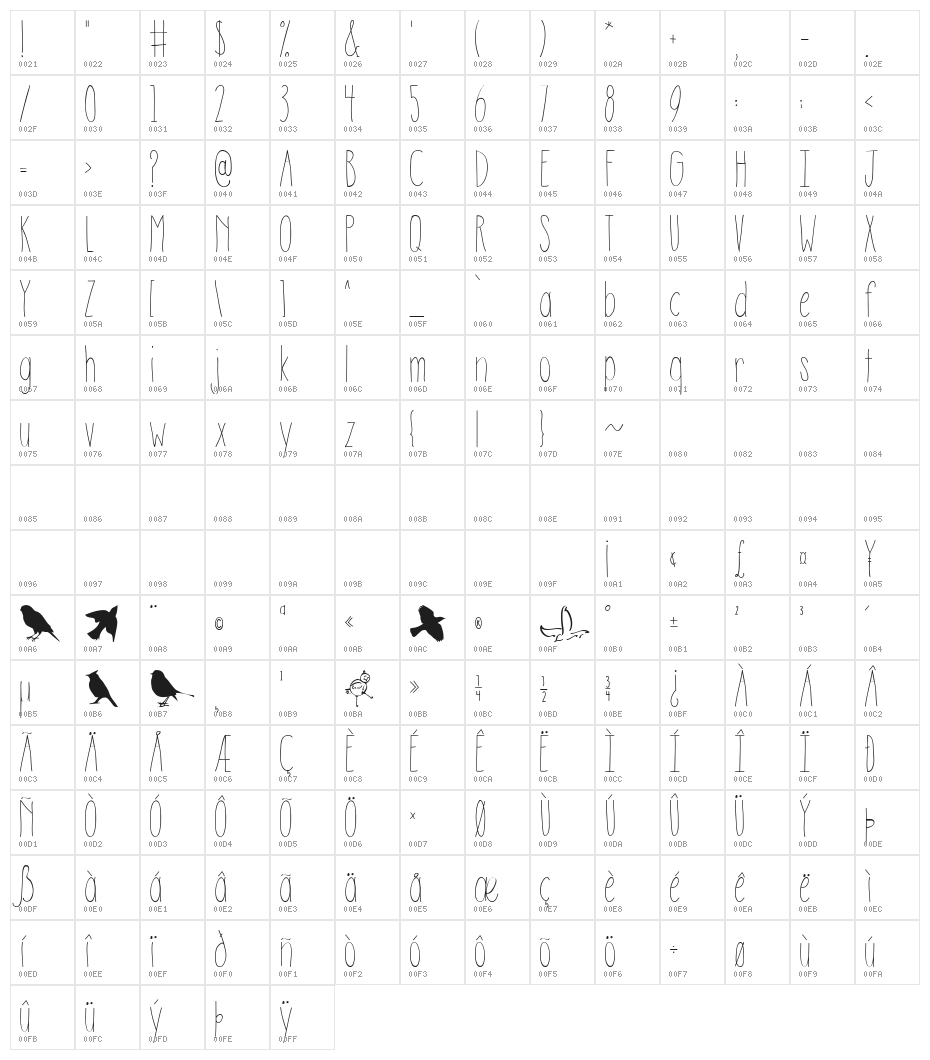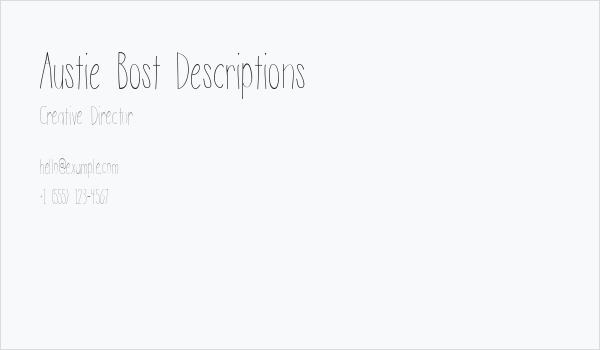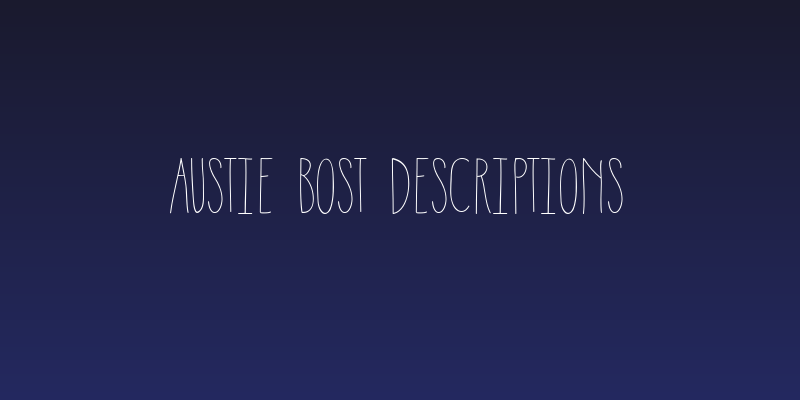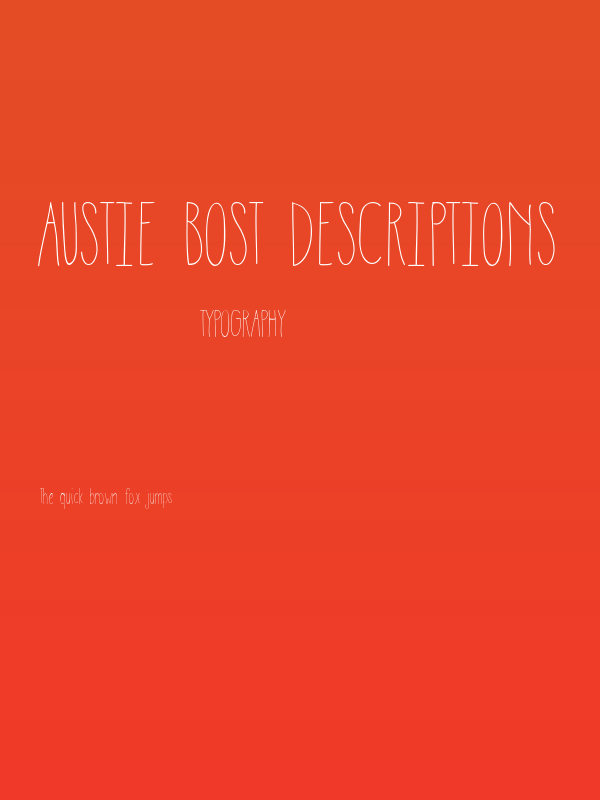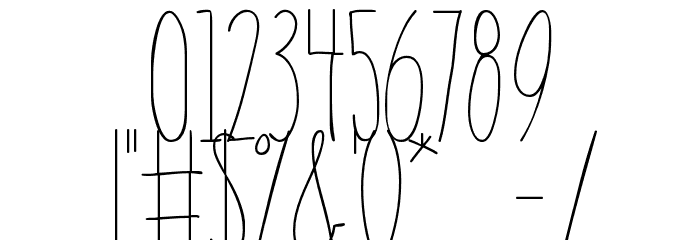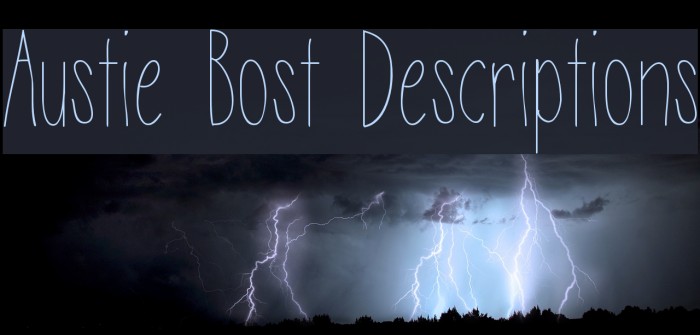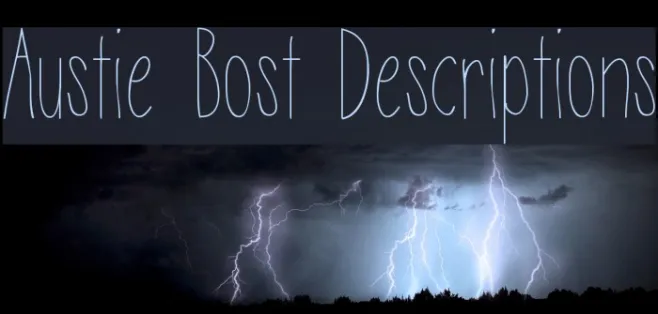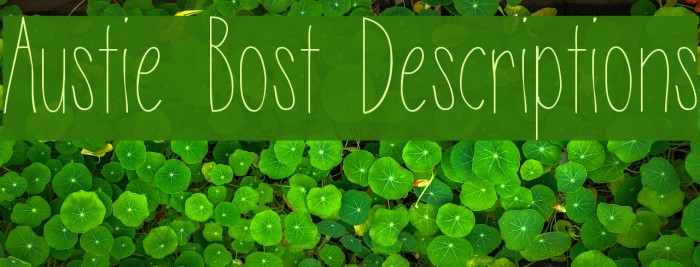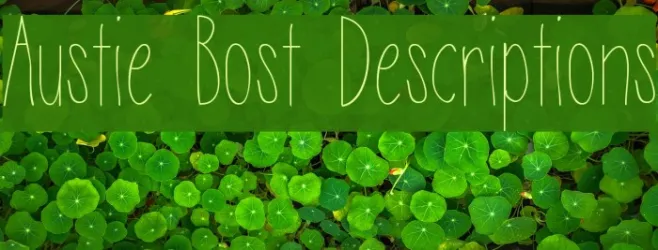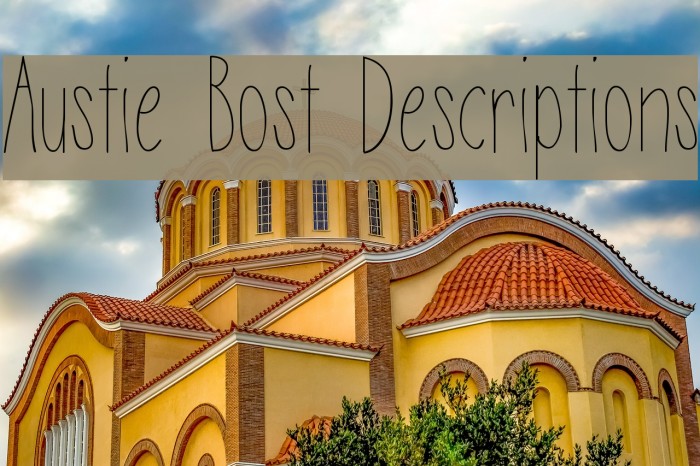
Austie Bost Descriptions Font
Austie Bost Descriptions Description
This font features a whimsical and playful design with tall, narrow characters that have a hand-drawn appearance. The strokes are thin and consistent, giving it a delicate and airy feel. The uppercase and lowercase letters maintain a uniform height, contributing to its quirky charm. The numbers and special characters follow the same slender and elongated style, ensuring a cohesive look across all elements. This font's unique personality makes it stand out, ideal for projects that require a touch of creativity and individuality.
| Use Case | Headlines, Logos, Decorative text |
| Proposed Projects | Perfect for children's books, greeting cards, playful branding, and creative posters. |